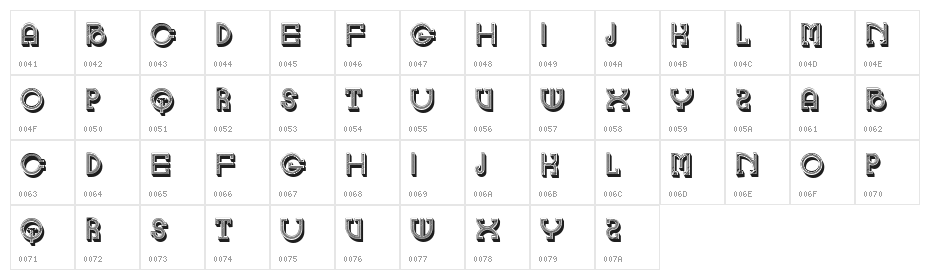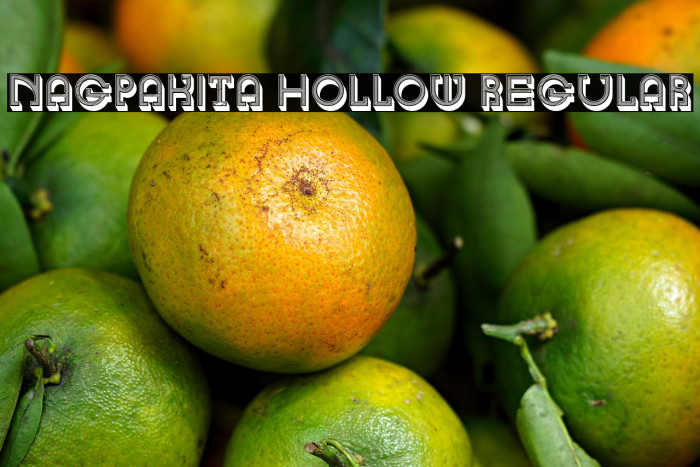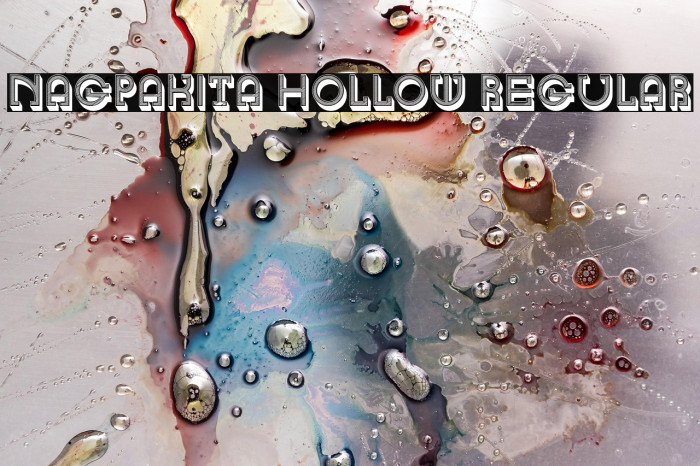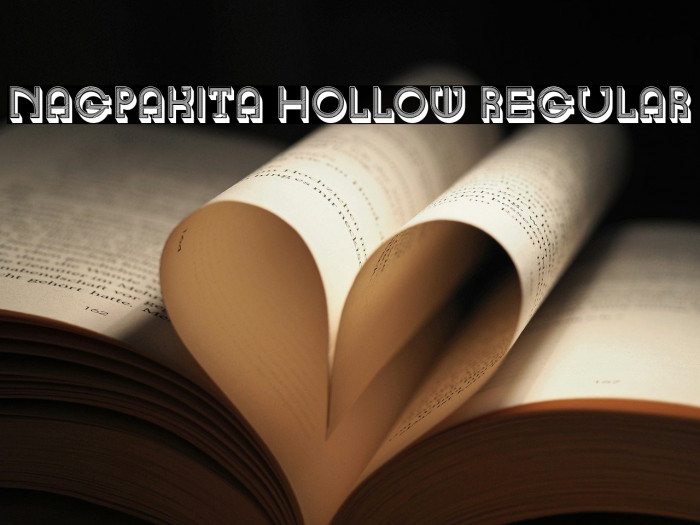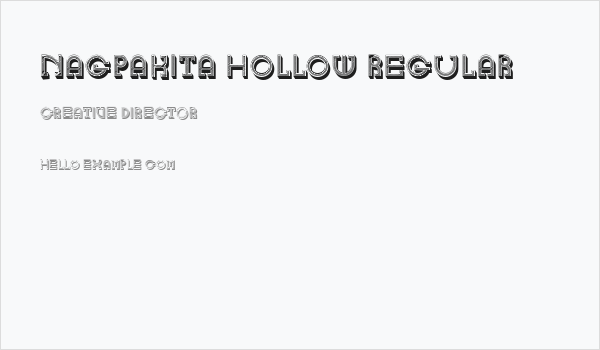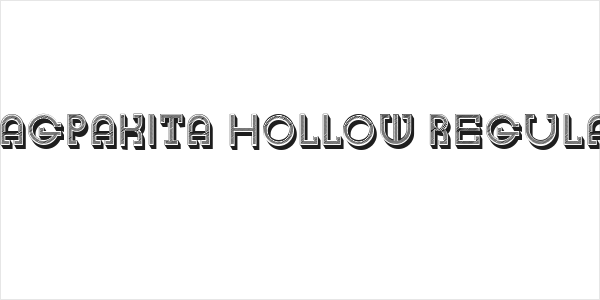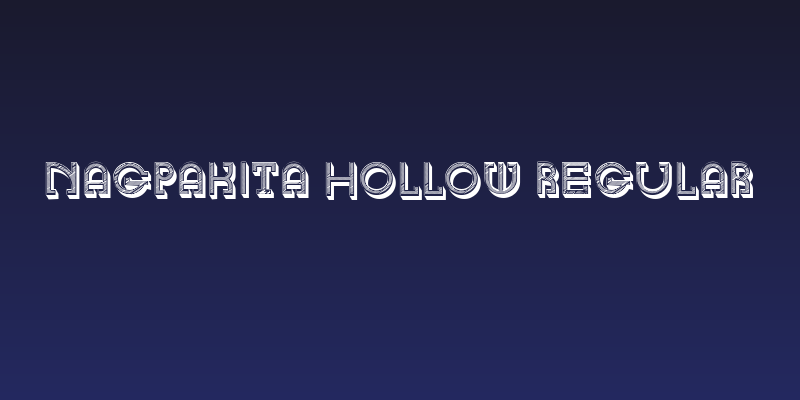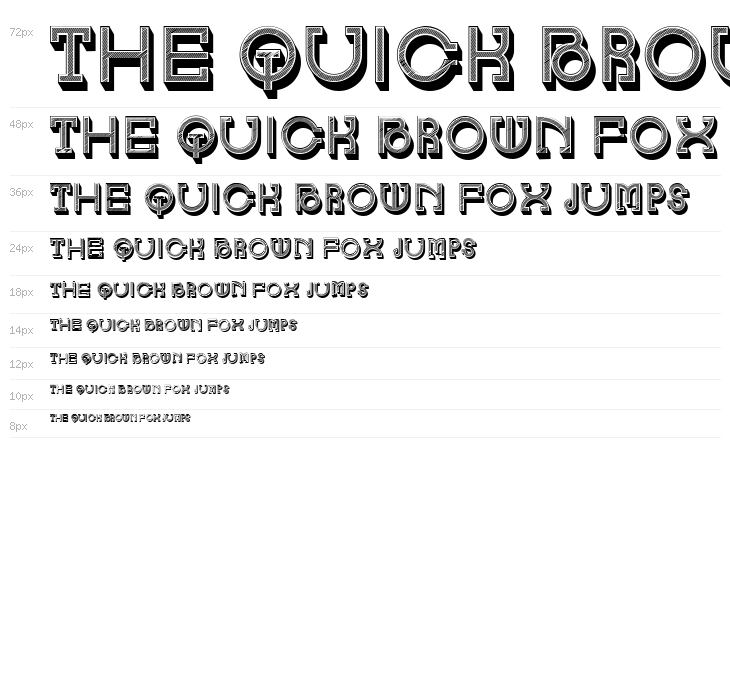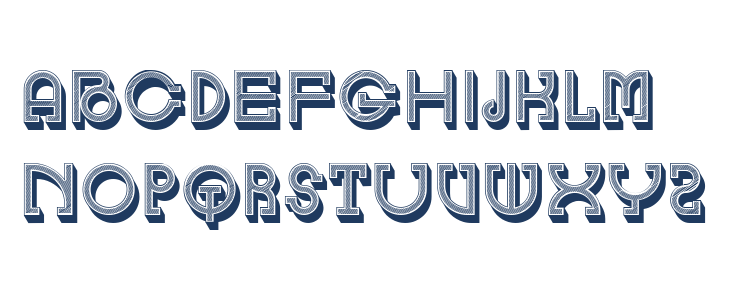
Nagpakita Hollow Regular Font
Nagpakita Hollow Regular Description
This font features a bold, hollow design with a three-dimensional effect, giving it a striking and dynamic appearance. The characters are outlined with a thick border and have an inner shadow that adds depth. The style is reminiscent of vintage signage, with a modern twist that makes it suitable for contemporary designs. The uppercase letters are particularly prominent, with geometric shapes and clean lines that enhance their visual impact. The font's unique structure makes it ideal for creating eye-catching headlines and titles.
| Overall Style | Vintage, Modern |
| Proposed Projects | Ideal for poster designs, branding projects, and any creative work that requires a standout display font. |